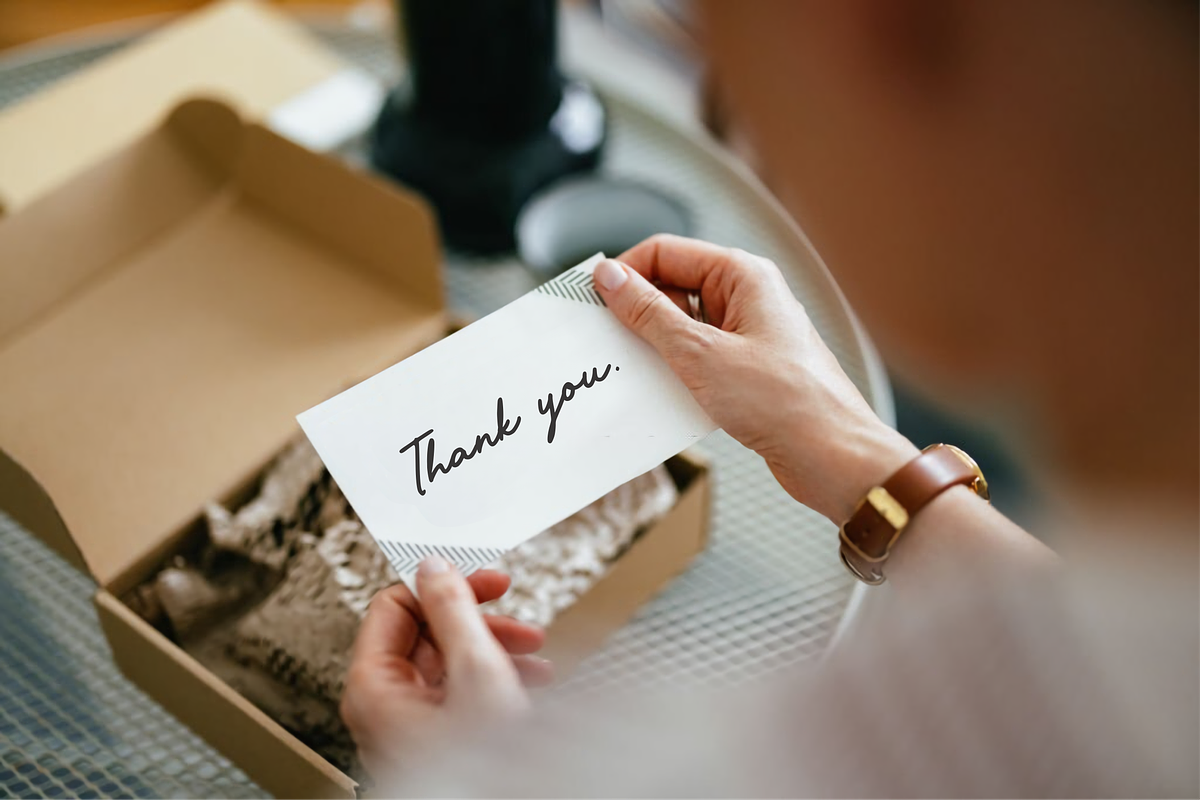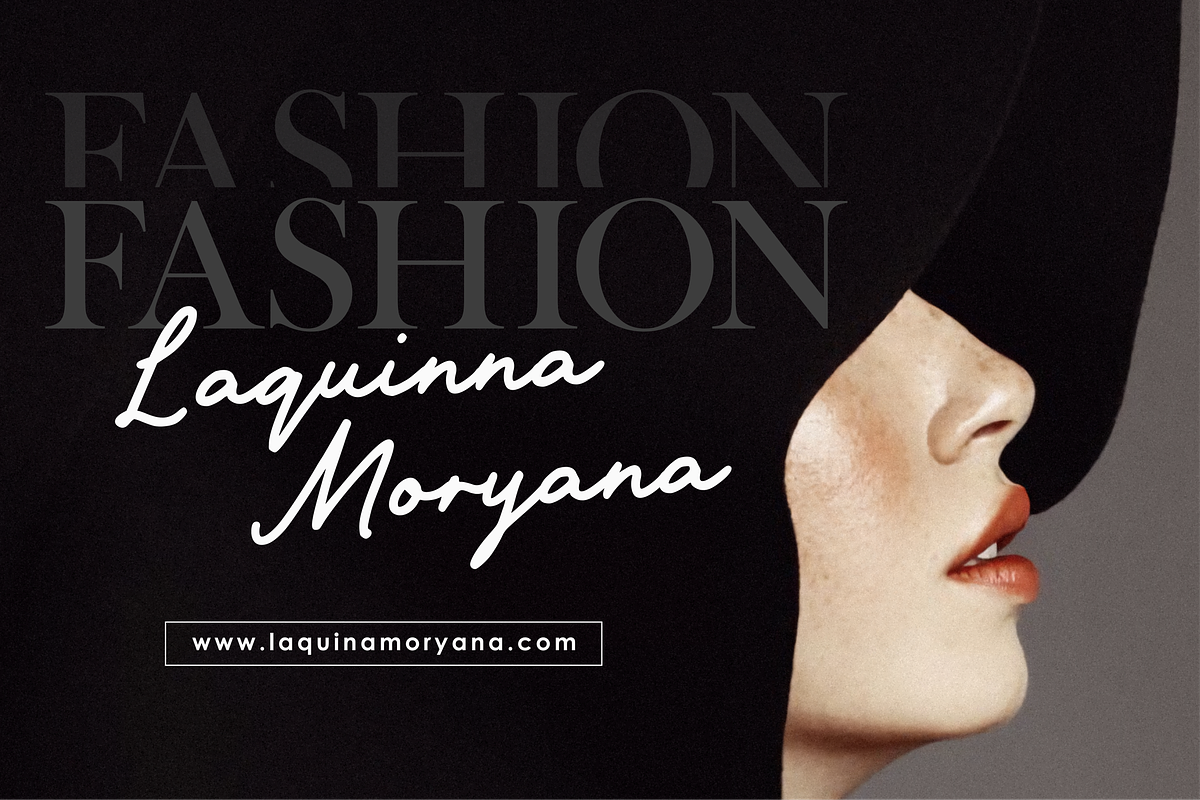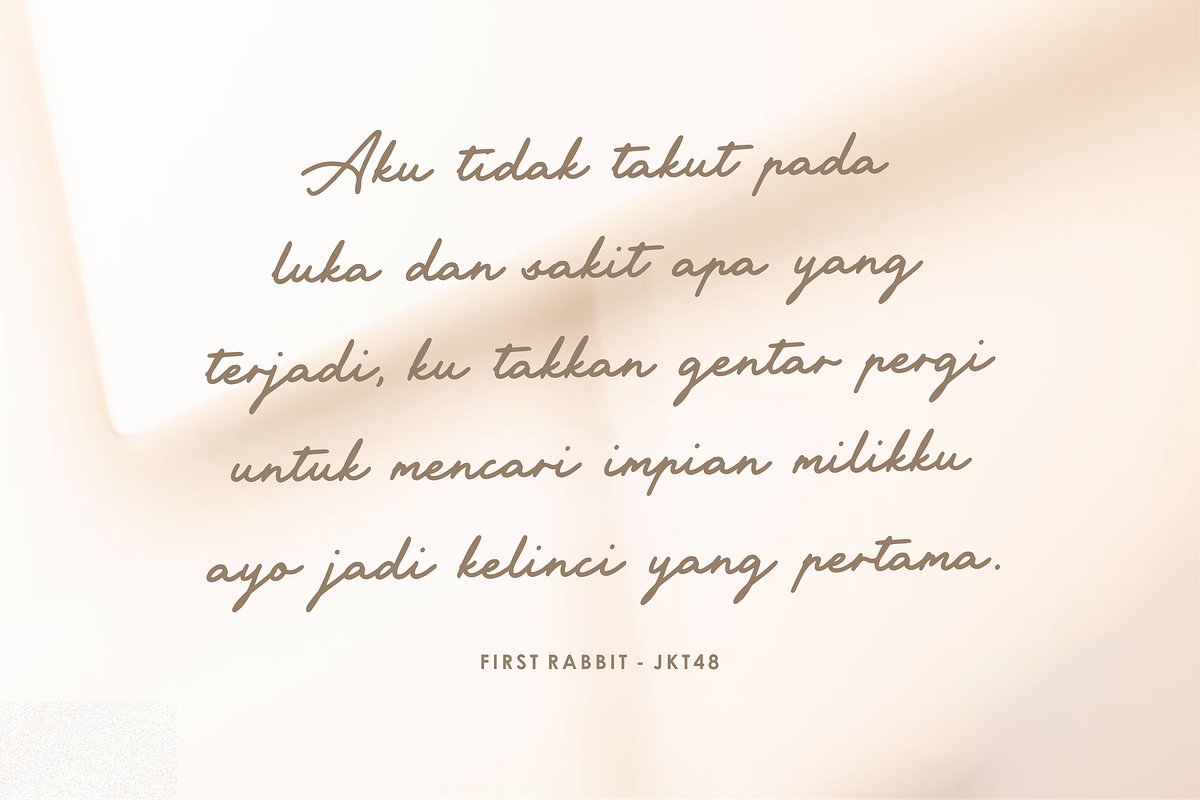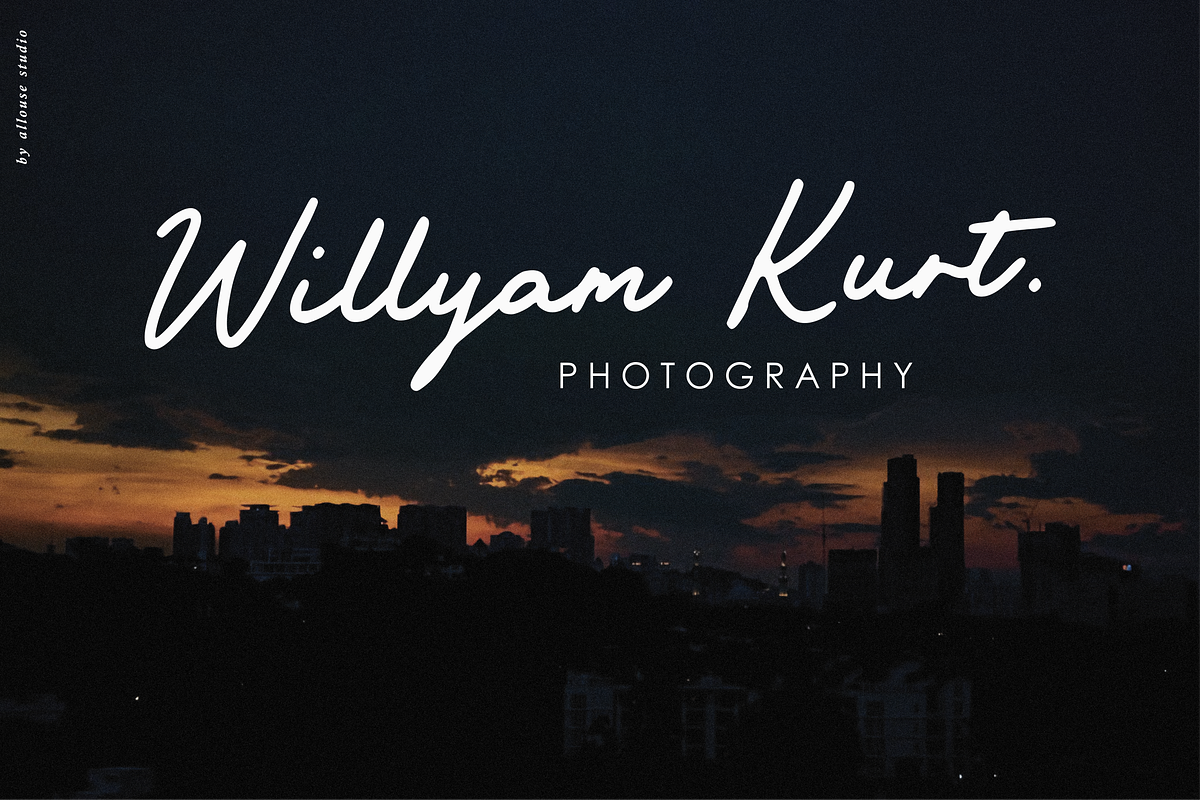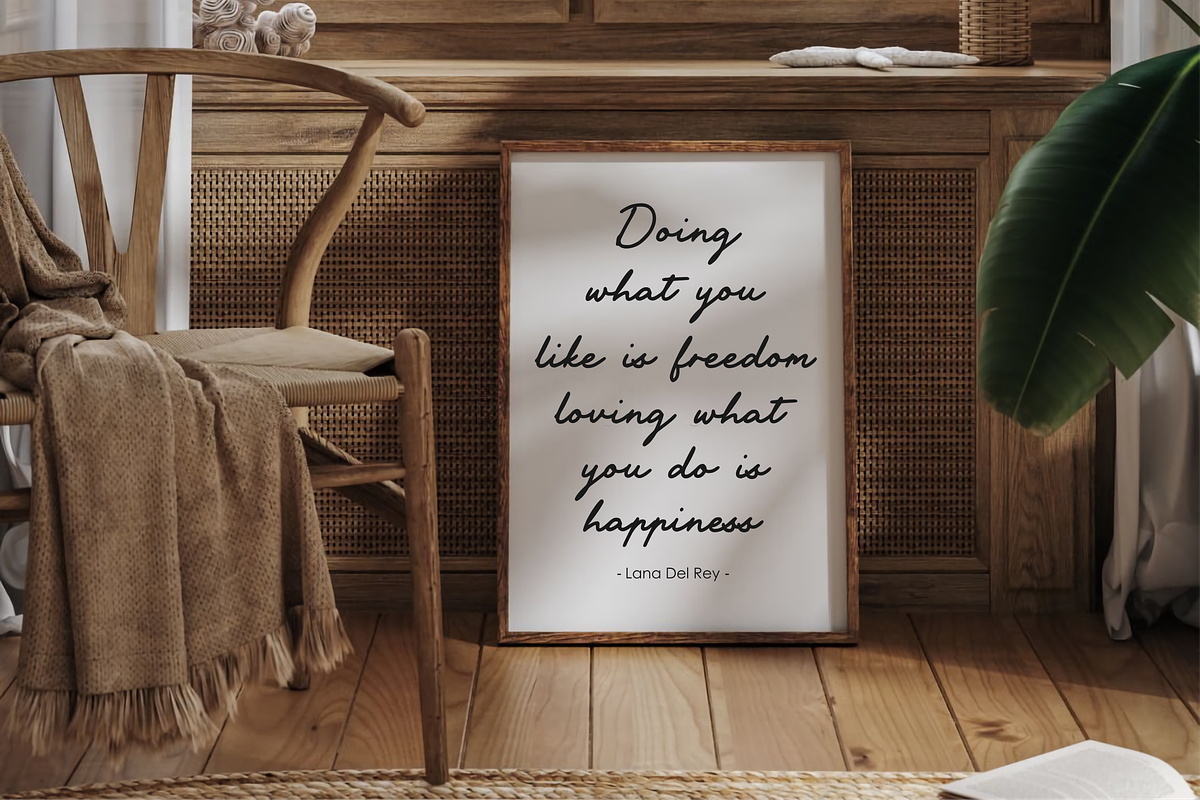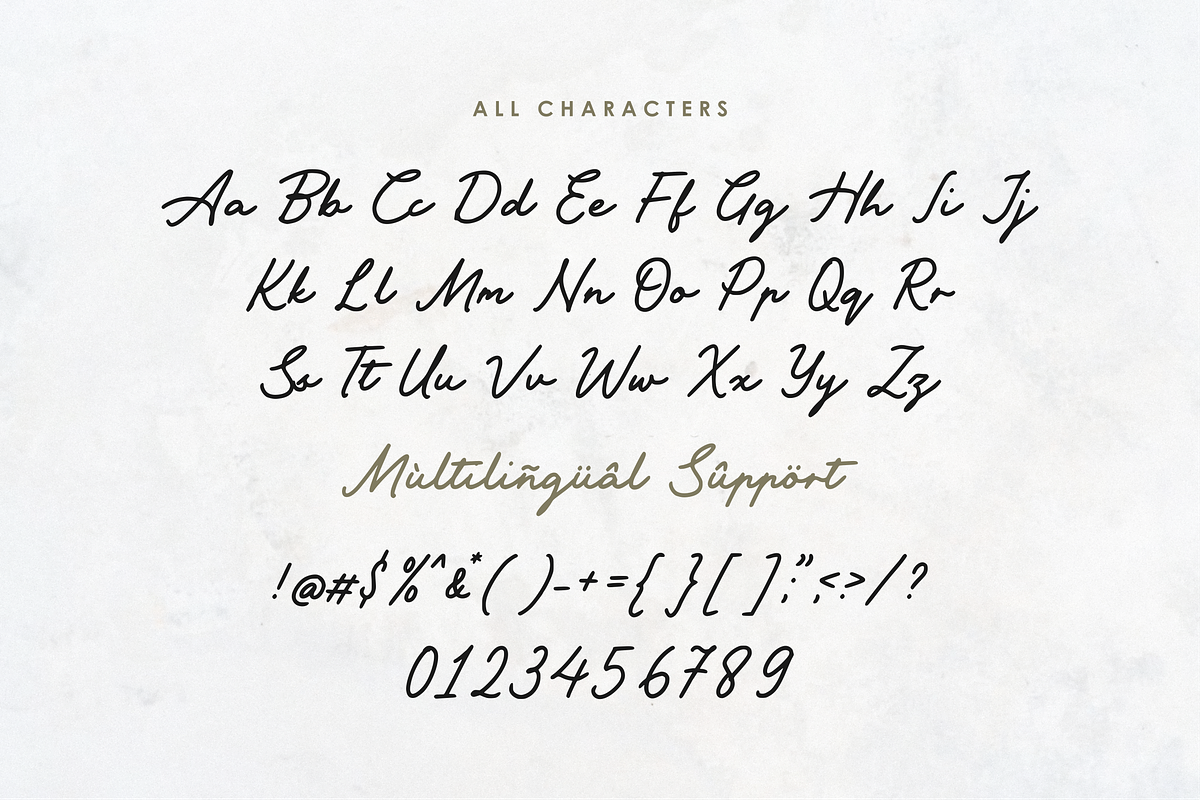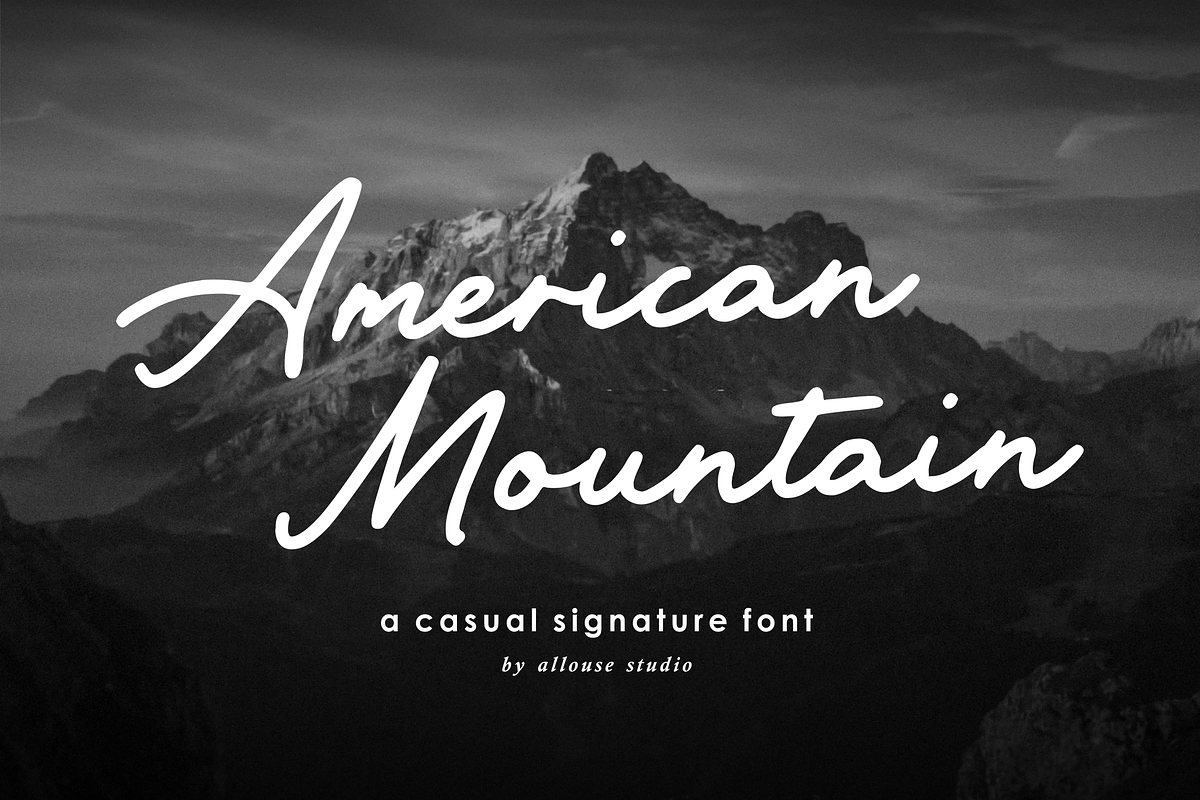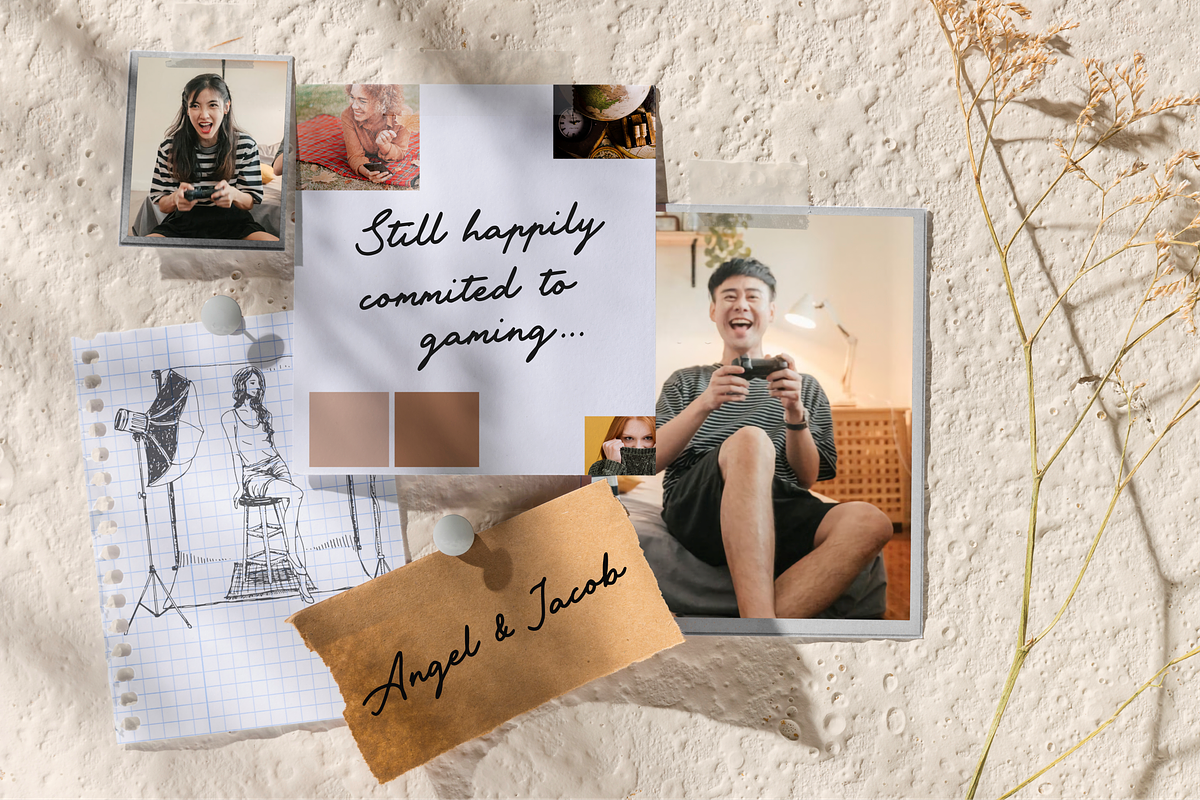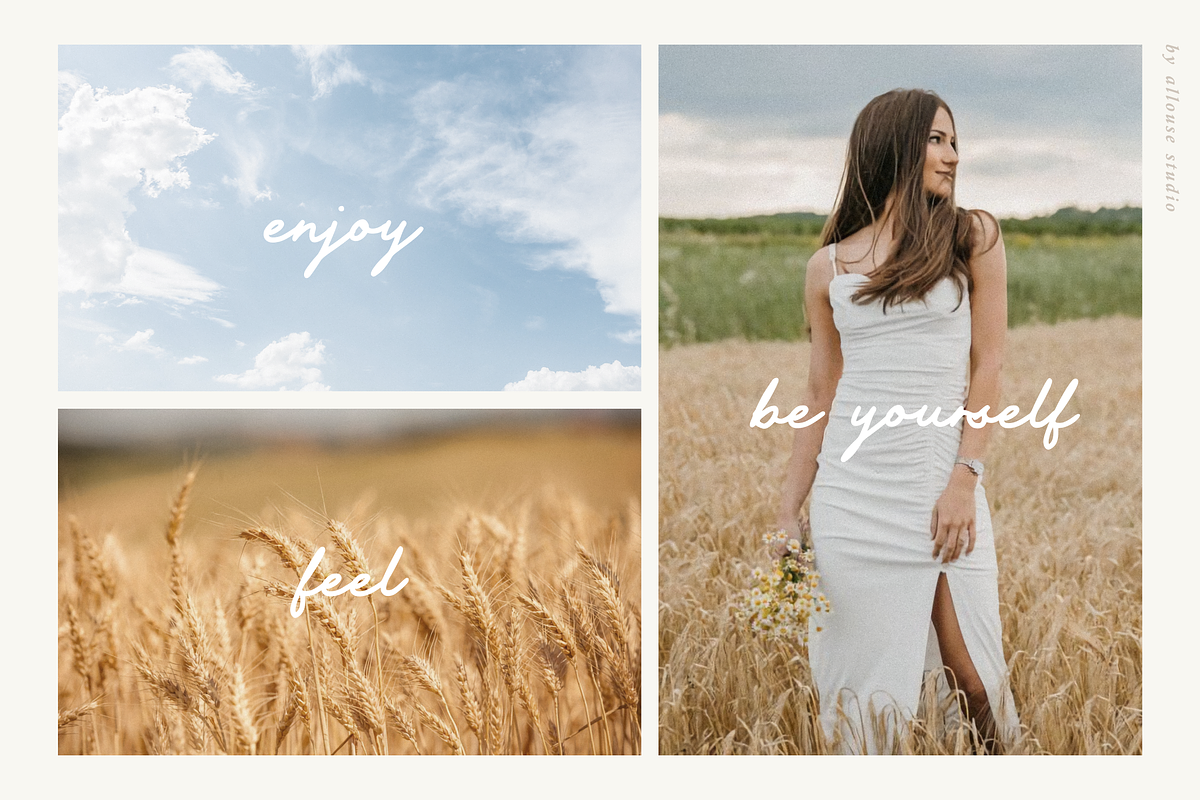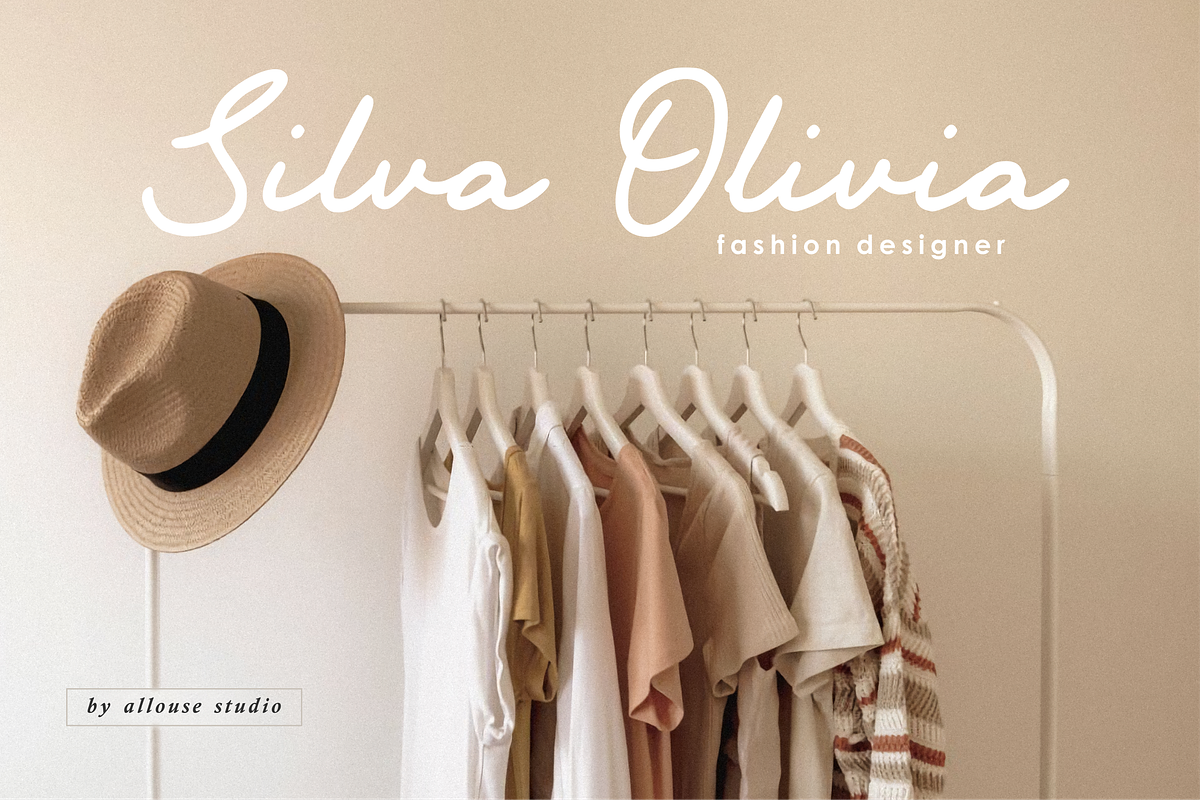
American Mountain A Casual Signature
Proudly Presenting, American Mountain A Casual Signature Font.
American Mountain is perfect for any titles, logo, product packaging, branding project, megazine, social media, wedding, or just used to express words above the background.
American Mountain also come with Multi-Lingual Support.